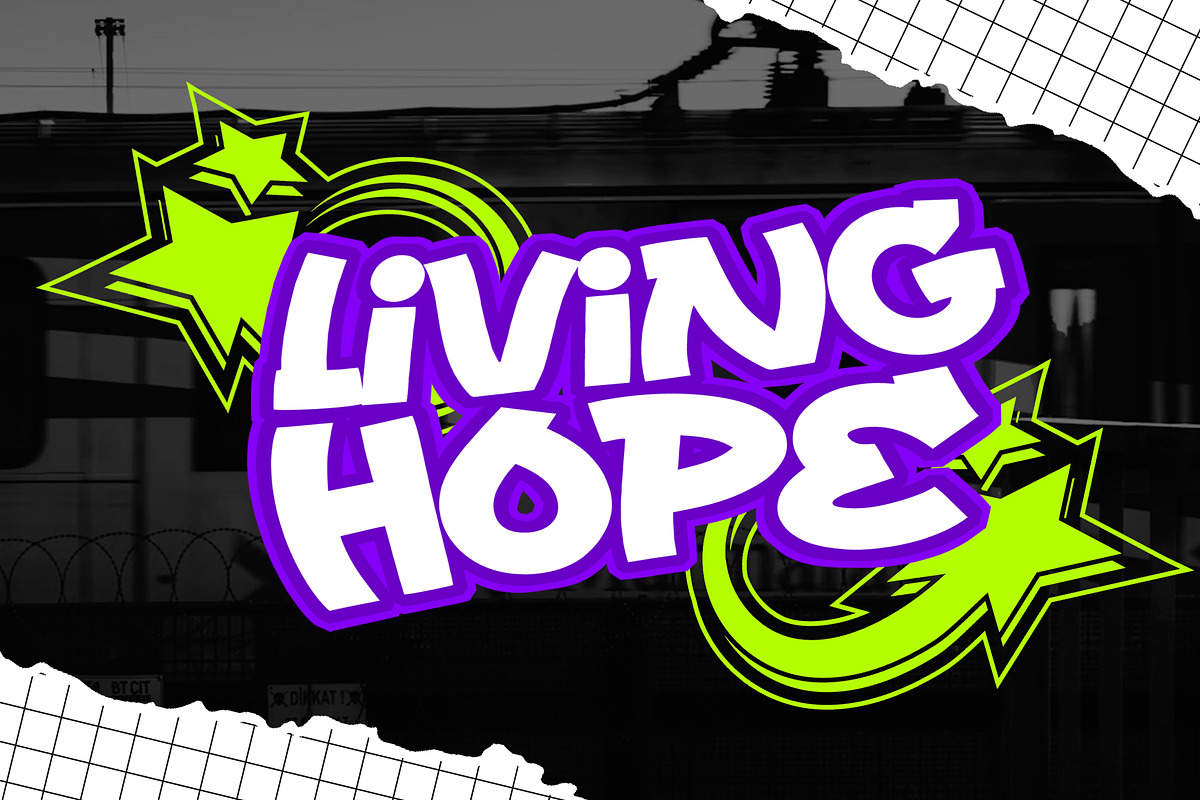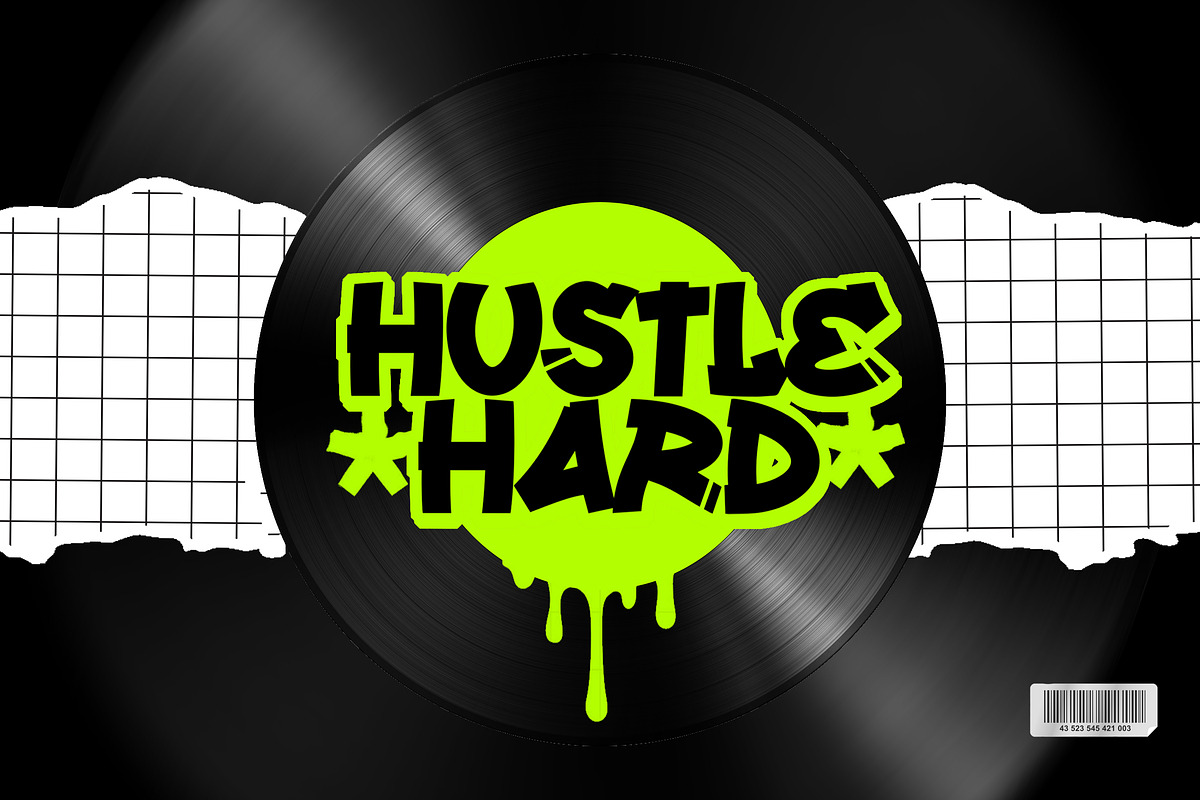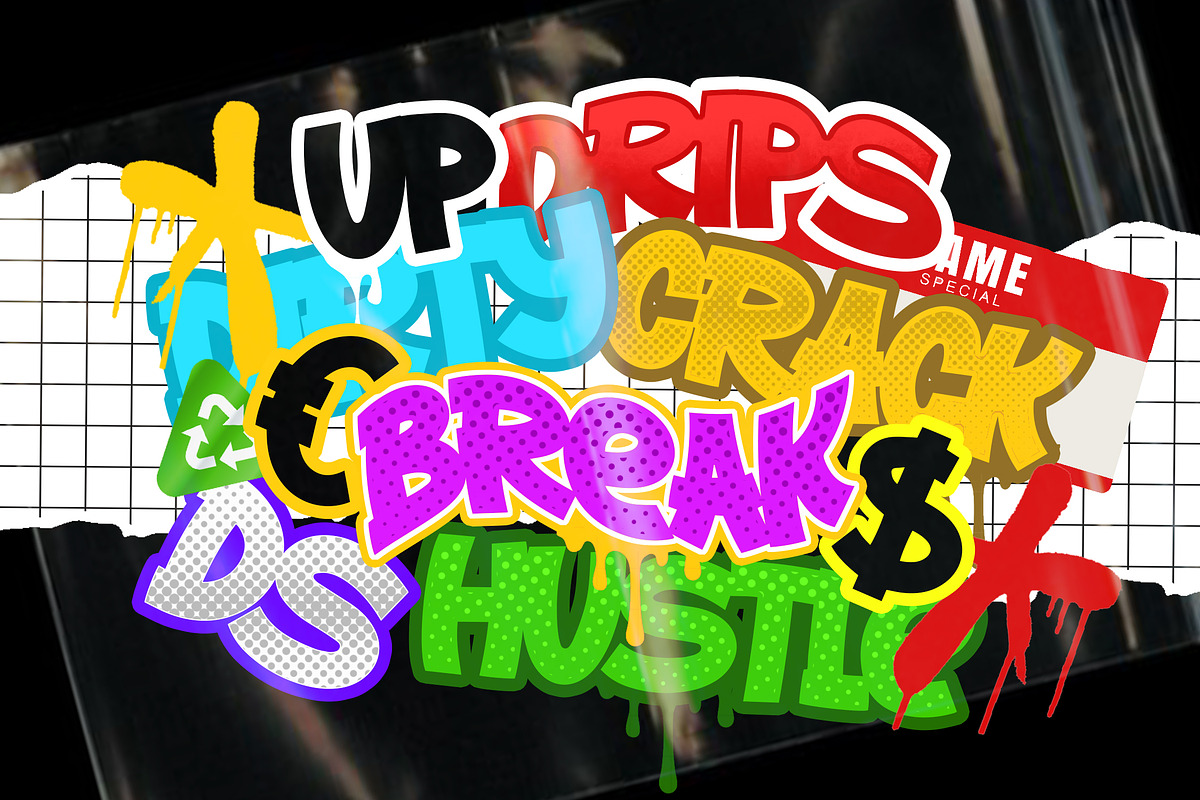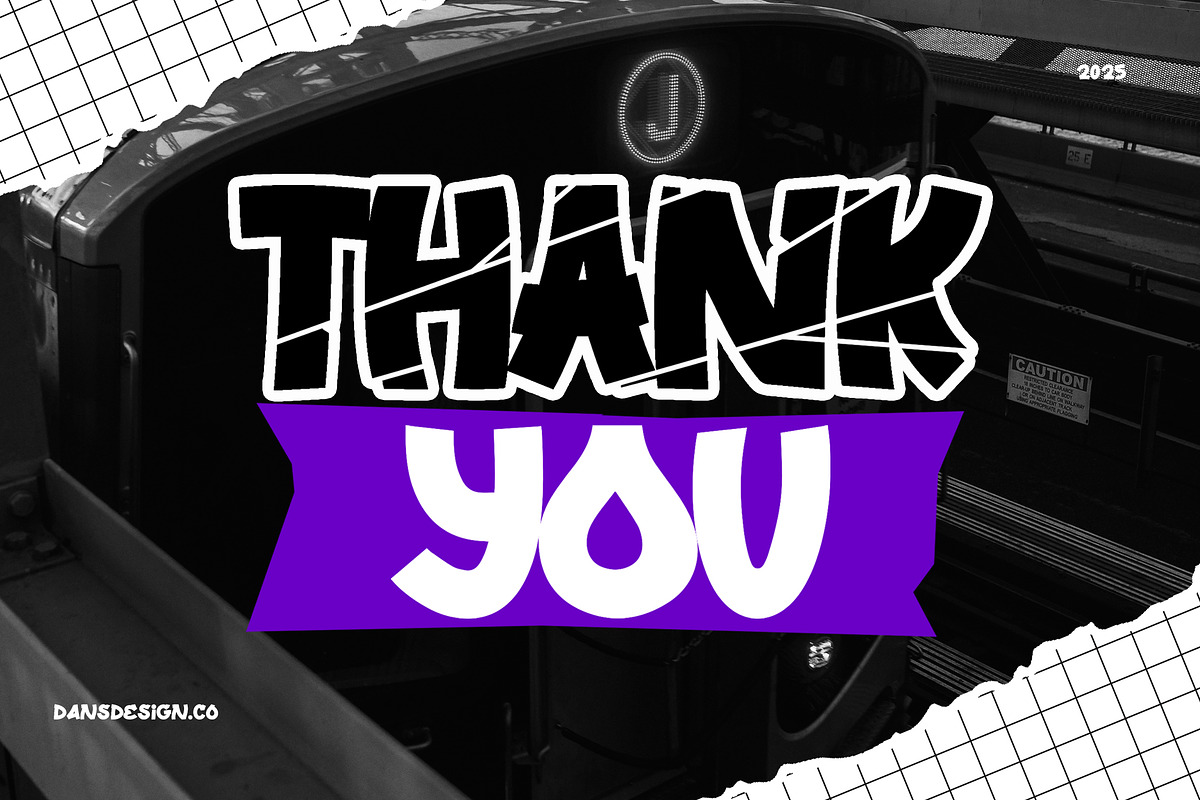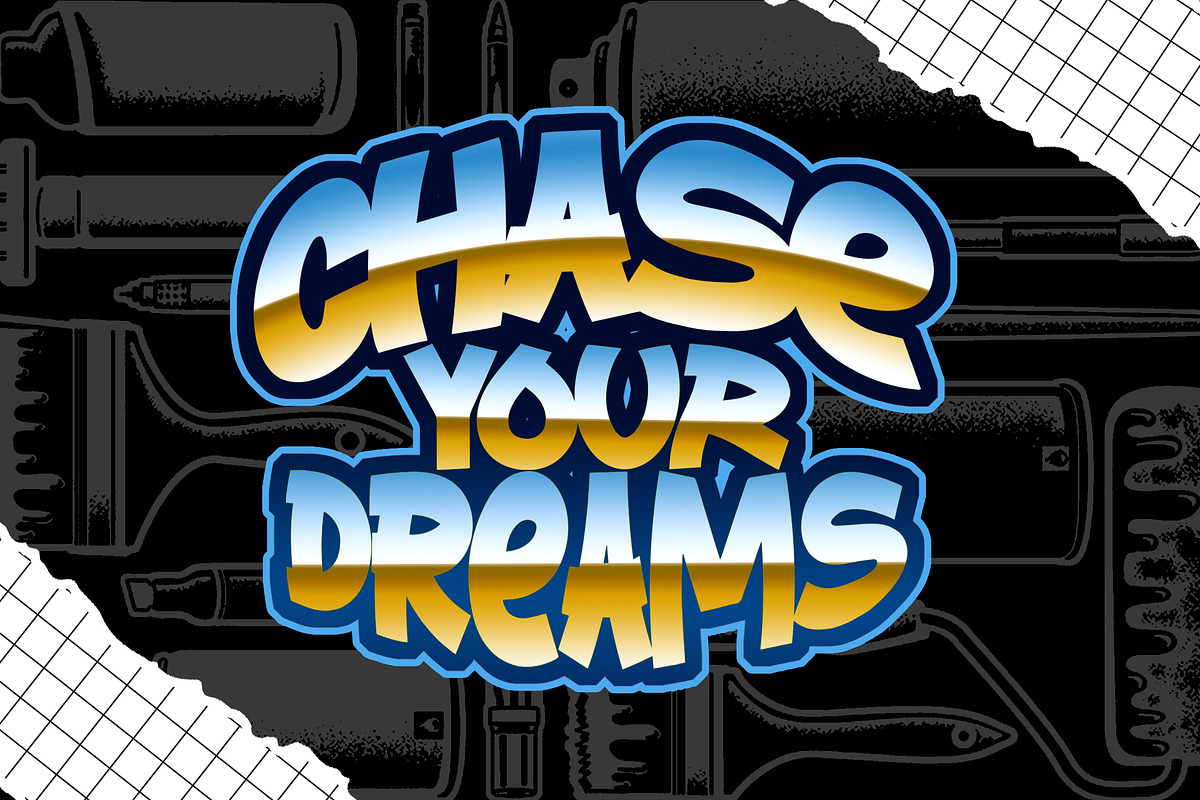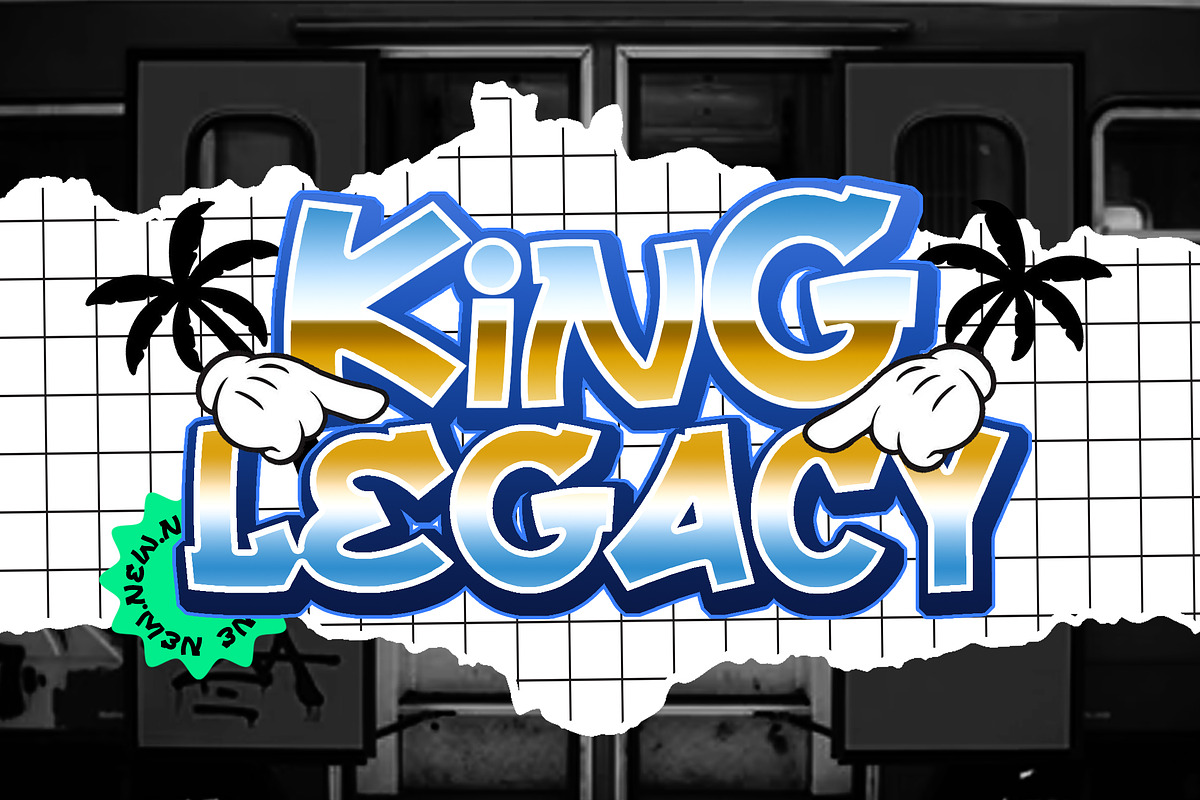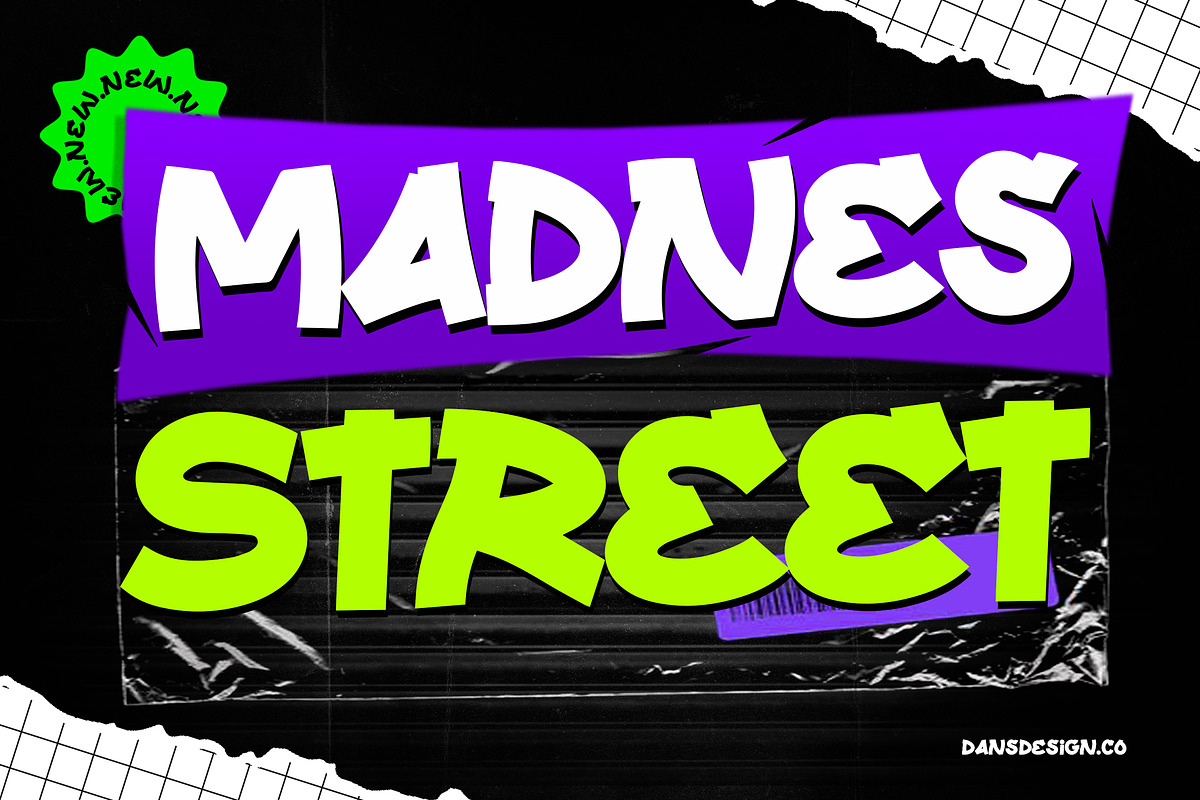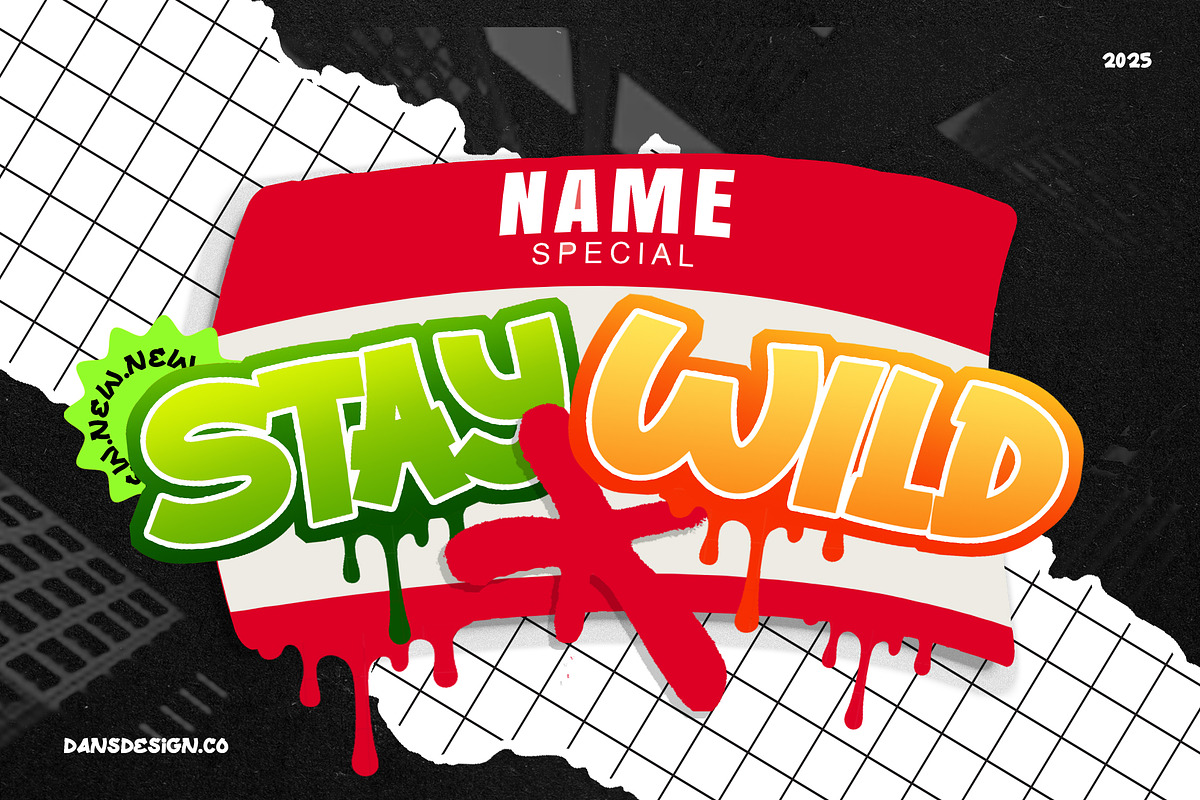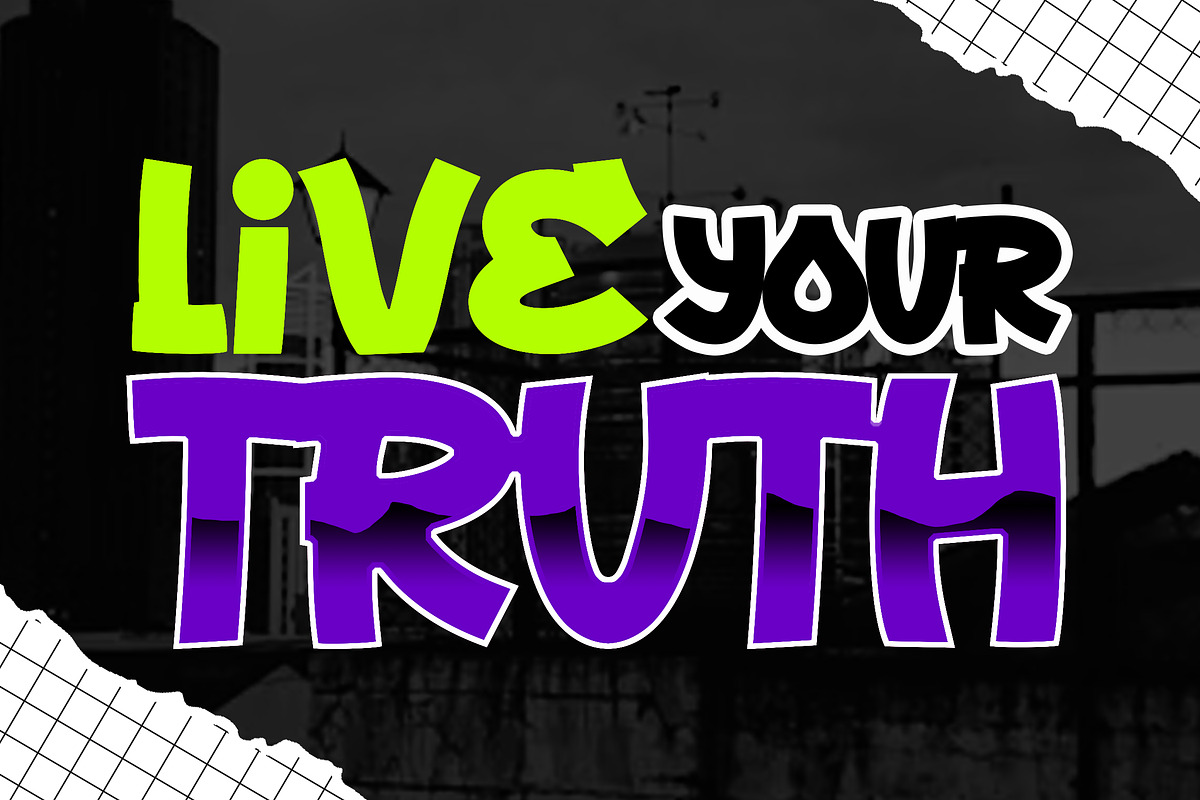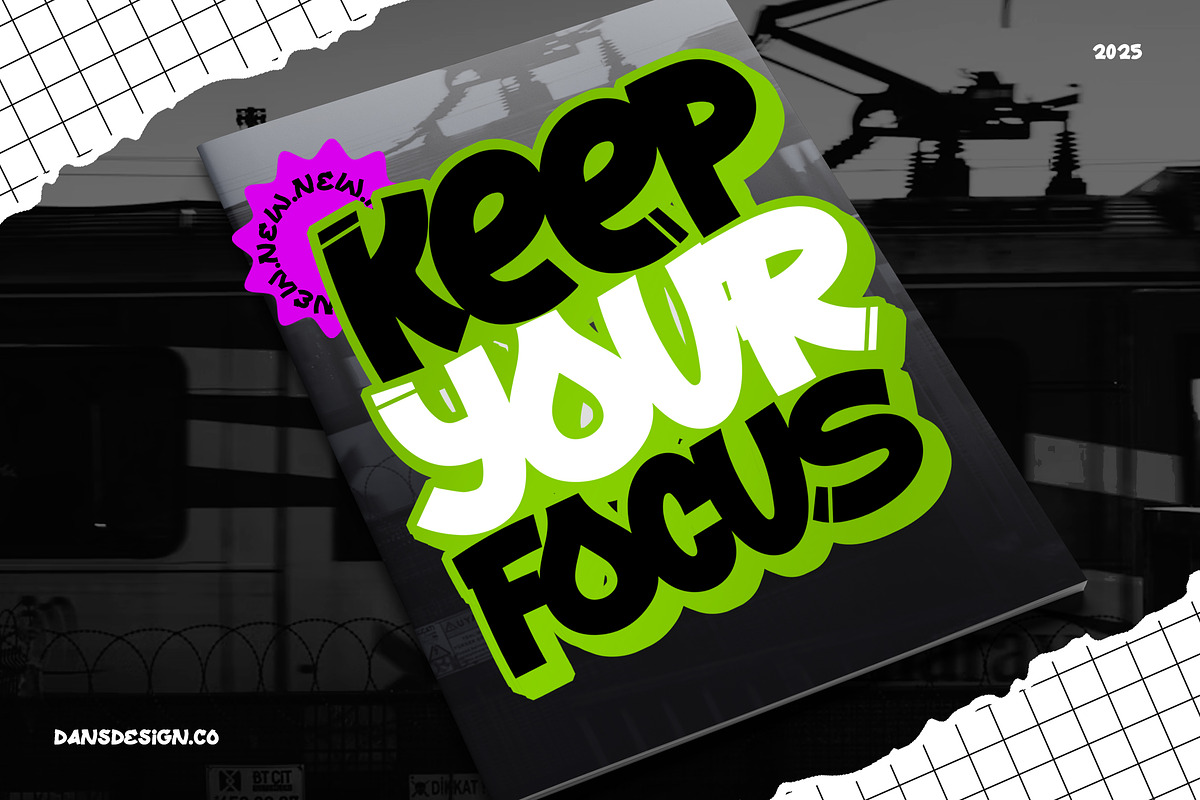
Madnes Street Comic Graffiti Tag
Madnes Street – Comic Graffiti Font for Urban Posters, Tagging, and Loud Visuals
Madnes Street is a wild, energetic graffiti display font that blends comic-style boldness with street tagging chaos. Hand-drawn with attitude and filled with punchy curves and offbeat balance, this font explodes off the screen—perfect for youth culture designs, rebellious branding, and everything loud, bold, and unapologetically urban.
Infused with playful defiance and street-smart aesthetics, Madnes Street makes your logos, music covers, and social media visuals stand out with bold, neon-style expression.
🎯 Perfect for:
Comic-style graffiti posters & loud tagging art Hip-hop, punk, and street band merchandise Logos with youthful attitude and edgy spirit Streetwear branding, stickers, and zines YouTube thumbnails and mixtape covers Gaming art, event flyers, and bold marketing visuals
🔥 Key Features:
Madnes Street brings street flavor and comic-style mischief into every project. Whether you’re tagging up a poster, hyping a band, or branding with a bang—this font is your street weapon.